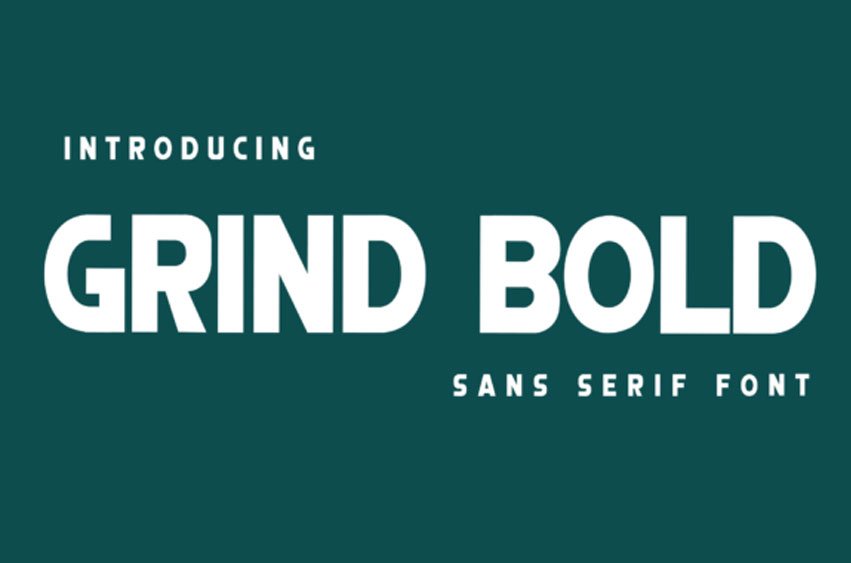
Grind Bold Font is a powerful, heavyweight sans-serif font designed for maximum impact and clarity. It features ultra-thick, blocky letterforms with tight spacing and clean, geometric edges. The massive proportions of the characters give the typeface a sense of industrial strength and unwavering authority.
This font is a versatile powerhouse for sports branding, construction company logos, fitness apparel, high-visibility warning signs, and bold social media headlines that demand immediate attention.